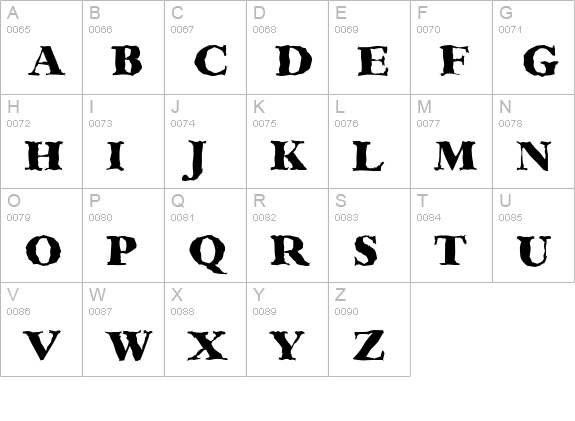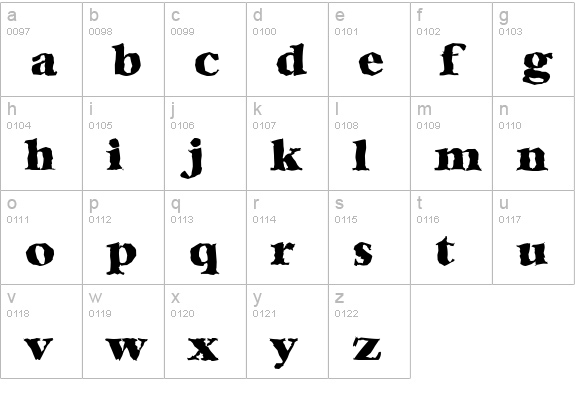
BernsteinRandom-Heavy-Regular Font Details
BernsteinRandom-Heavy-Regular is a heavy, high-impact variant in the BernsteinRandom typeface family \xE2\x80\x94 well suited to high-impact headlines, posters, and display advertising.
Introducing BernsteinRandom-Heavy-Regular font, a striking typeface that combines the boldness of heavy weights with the playful randomness of its design. This font exudes a unique charm and adds a touch of creativity to any project it is used in. The irregular shapes and weights of the characters create a dynamic and eye-catching appearance, making BernsteinRandom-Heavy-Regular font perfect for headlines, logos, and other display purposes. Best of all, BernsteinRandom-Heavy-Regular font is available for free download at FontsMarket.com. This means you can easily access this one-of-a-kind font and incorporate it into your design projects without any cost. Don't miss out on the opportunity to enhance your designs with the distinctive flair of BernsteinRandom-Heavy-Regular font. Download it today and let your creativity soar!